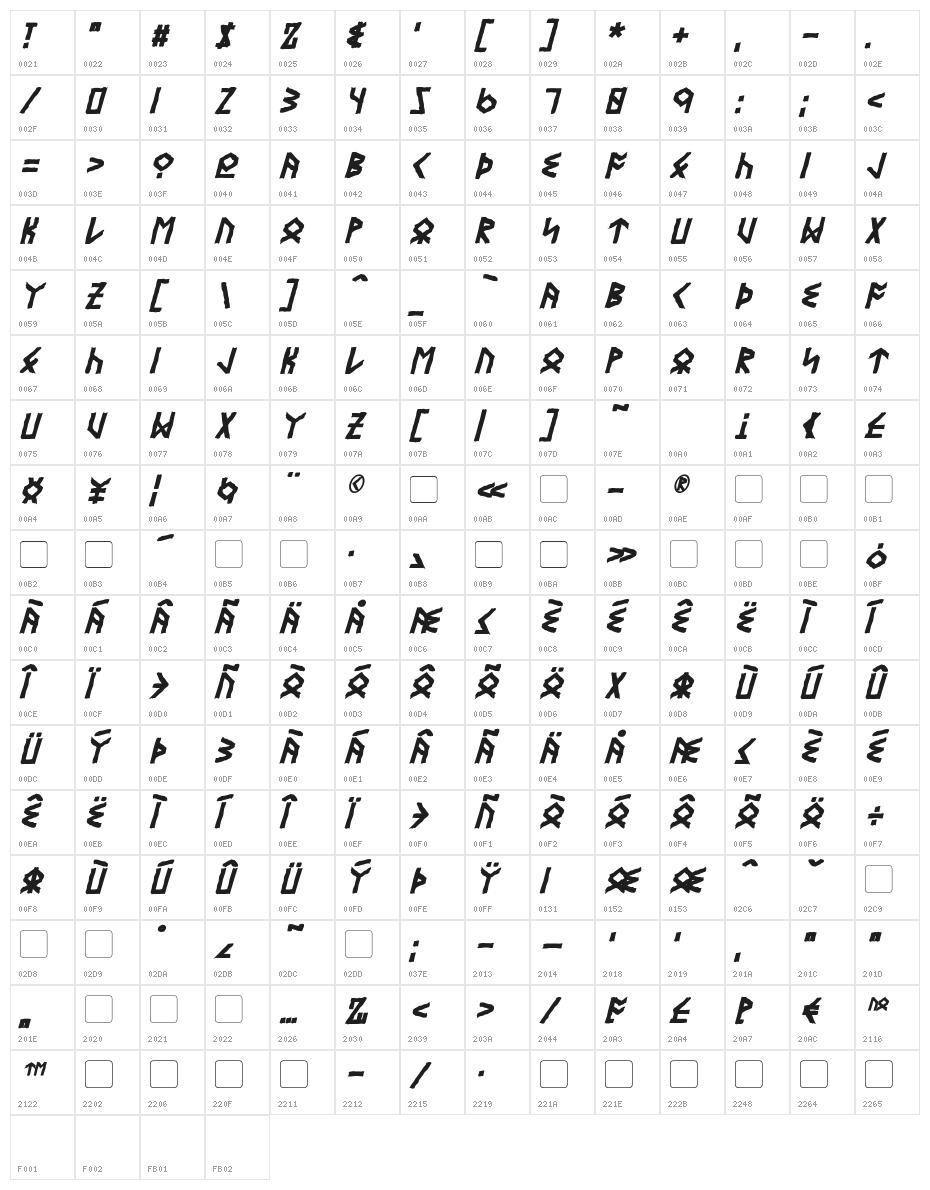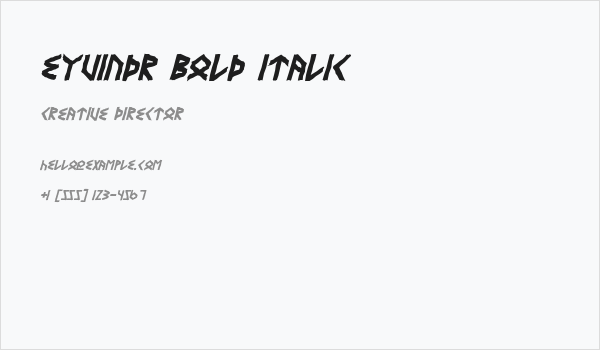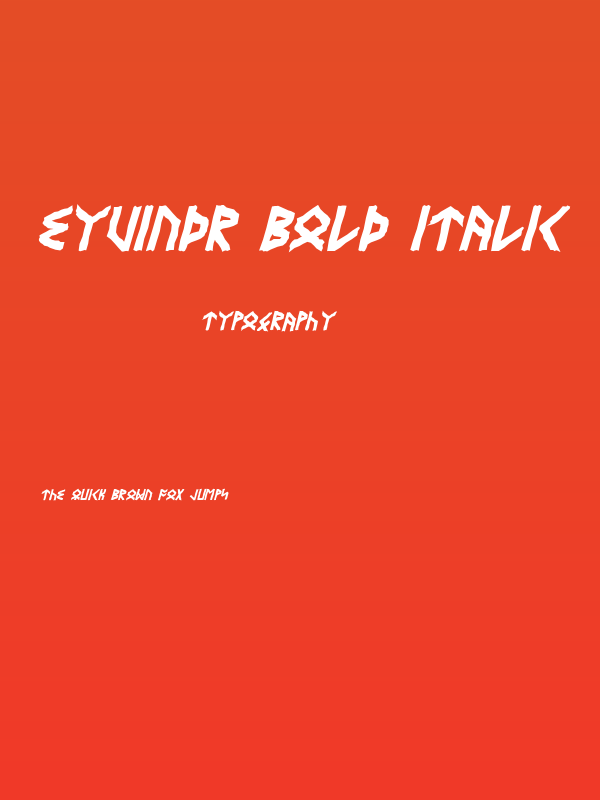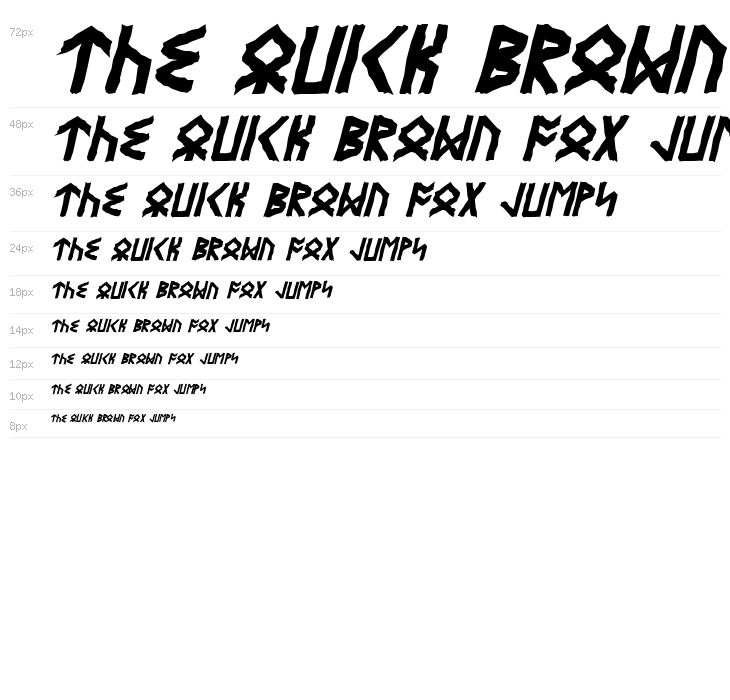
Eyvindr Bold Italic Font
Eyvindr Bold Italic Description
This font features a bold and italicized style with a distinct, angular design. The characters have a rugged, hand-drawn appearance, giving them a dynamic and energetic feel. The strokes are thick and uneven, creating a sense of movement and intensity. The uppercase and lowercase letters maintain a consistent style, with sharp edges and a slightly condensed form. The numerals and special characters follow the same aesthetic, ensuring a cohesive look across all text elements. This font's unique style makes it stand out, ideal for projects that require a bold statement.